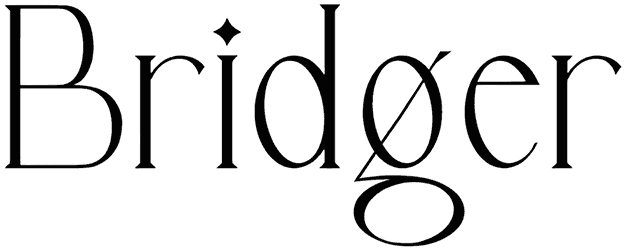
Bridger Font
Bridger is a reliable serif font that is capable of conveying the vibe of trustworthiness, respect, and confidence to an extreme. This masterpiece is usually the first preference of professional graphic artists for creating high-end logos, business cards, important documents, or product packaging.